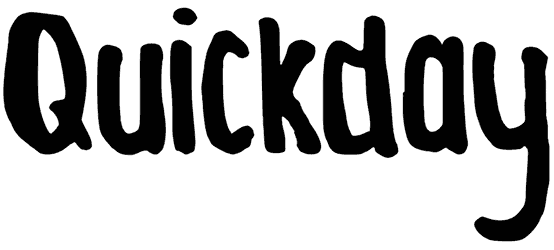
Quickday Font
If you are going to add a fresh breath to all of your creative ideas, including movie posters, book covers, animation brochures, stickers, or social media posts, then you will have to pick up a magical artwork such as Quickday.